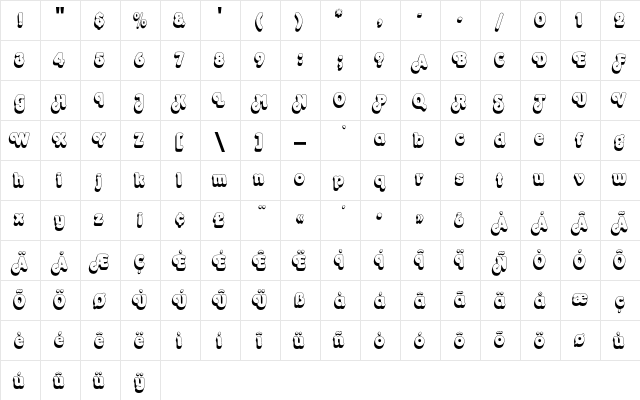
OctopussEF-Shaded Regular
Design Context for OctopussEF-Shaded Typeface
OctopussEF-Shaded is a composed and adaptable typeface that performs quietly and consistently across a wide range of design contexts.